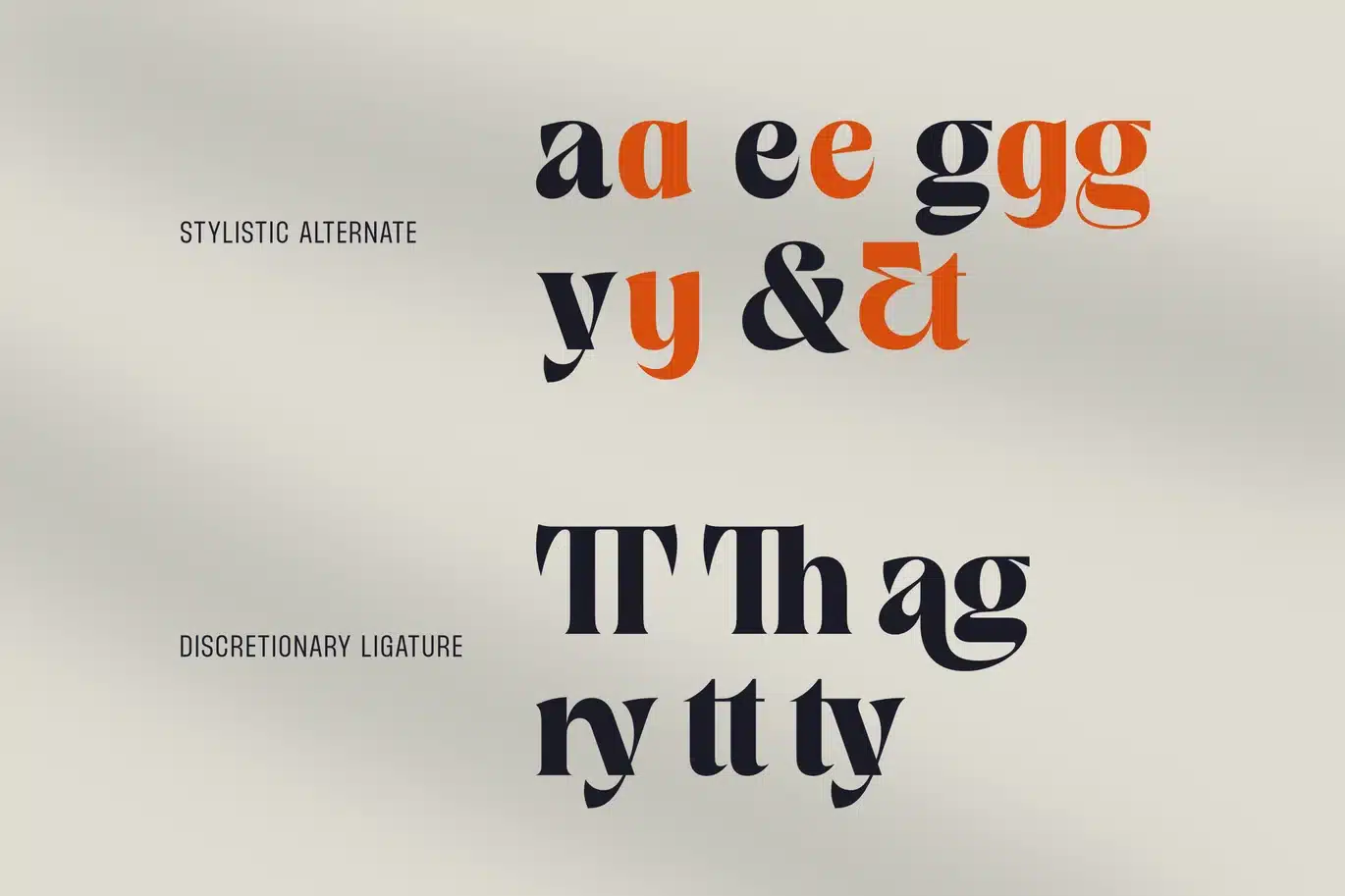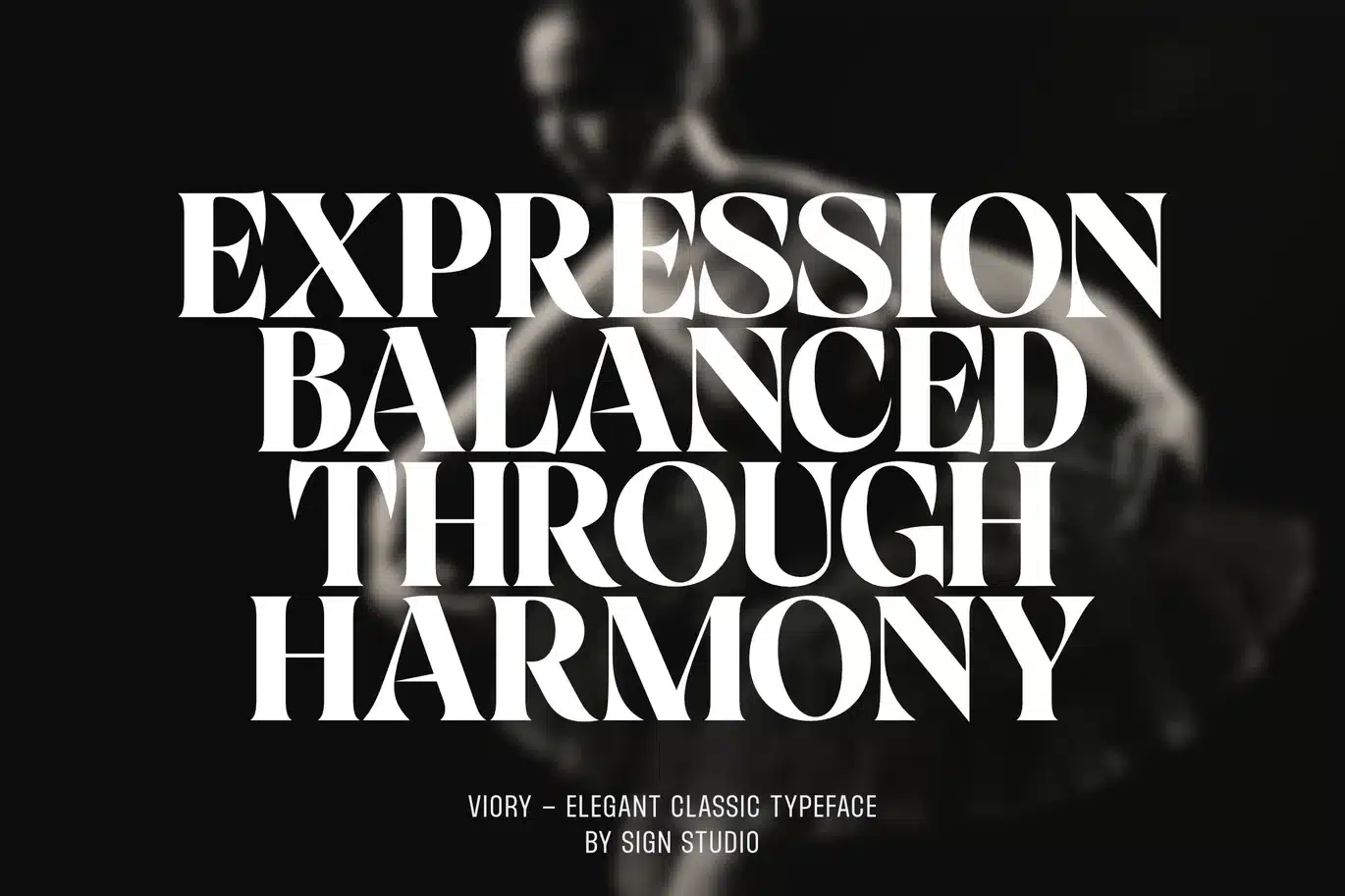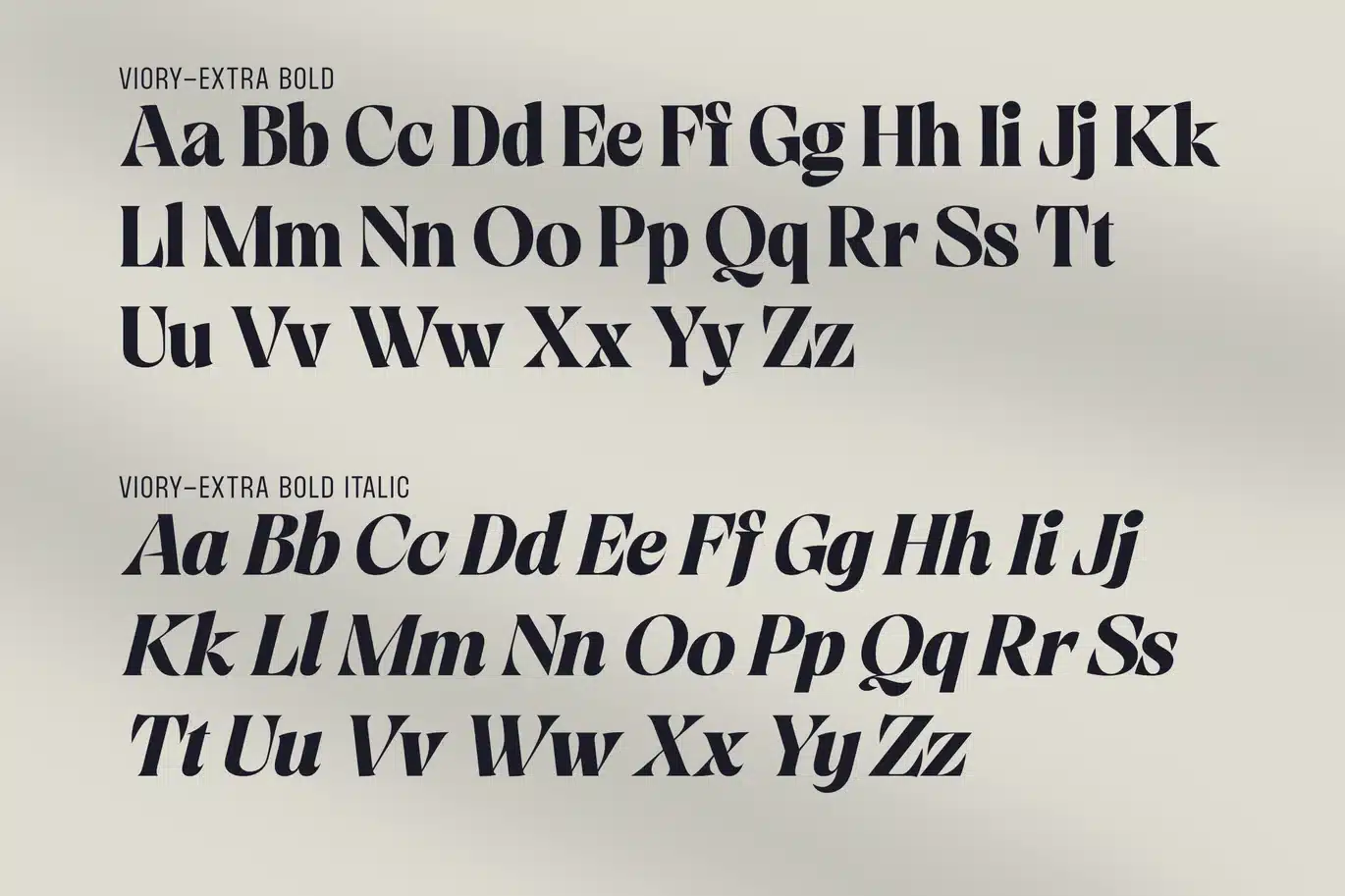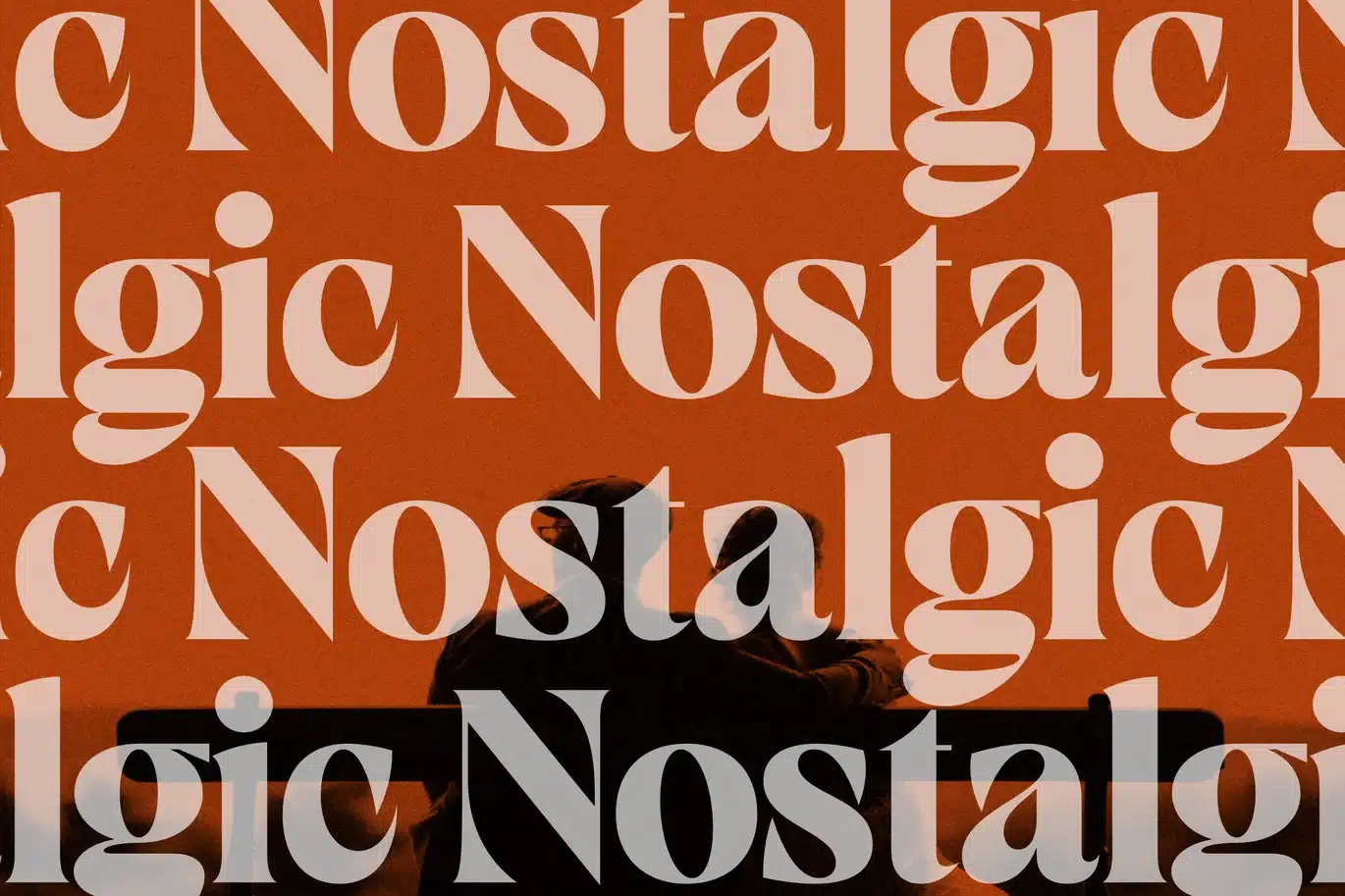
Viory – Extra Bold with Italic Version Font
Viory is a versatile serif font family designed for elegant and high-impact typography. Each style is carefully crafted to work harmoniously, making it ideal for building cohesive and refined visual identities.
This package features the Extra Bold weight, delivering a strong, confident presence while maintaining smooth curves and balanced proportions. Its bold character makes it perfect for headlines and standout compositions, while still preserving a timeless and classic feel.
Viory is equipped with advanced OpenType features, including Stylistic Sets, Discretionary Ligatures, and Alternate Characters, allowing you to create expressive and distinctive typography with ease.
Perfect for branding, logos, editorial design, packaging, luxury products, magazines, and modern advertising.